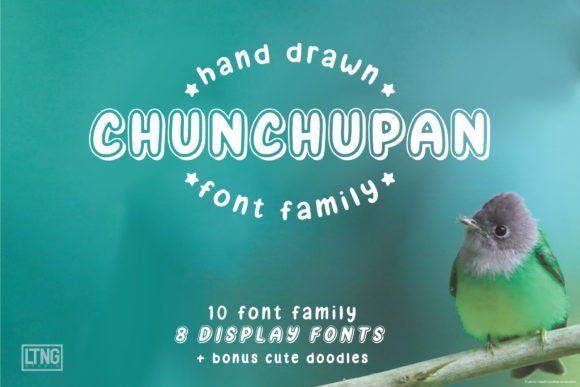
Introduction to Chunchupan Font
Chunchupan is a friendly display font.
Add this beautiful display font to each of your creative ideas and notice how it makes them stand out .
Key Features of Chunchupan Font
Why Choose Chunchupan Font?
Chunchupan Font offers exceptional quality and versatility, making it a valuable addition to your design toolkit. Whether you’re creating for personal projects or commercial use, Chunchupan Font delivers professional results.